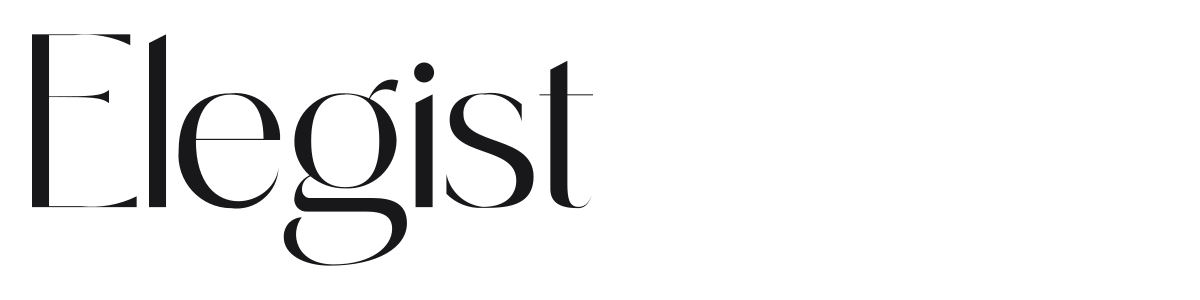
Elegist
Elegist is a high-contrast didone serif with extreme variation between hairline horizontals and bold vertical strokes. The proportions are tall and open, giving headlines a spare, couture-adjacent quality reminiscent of fashion magazine mastheads. It carries the visual DNA of 19th-century moderns but with a contemporary lightness.